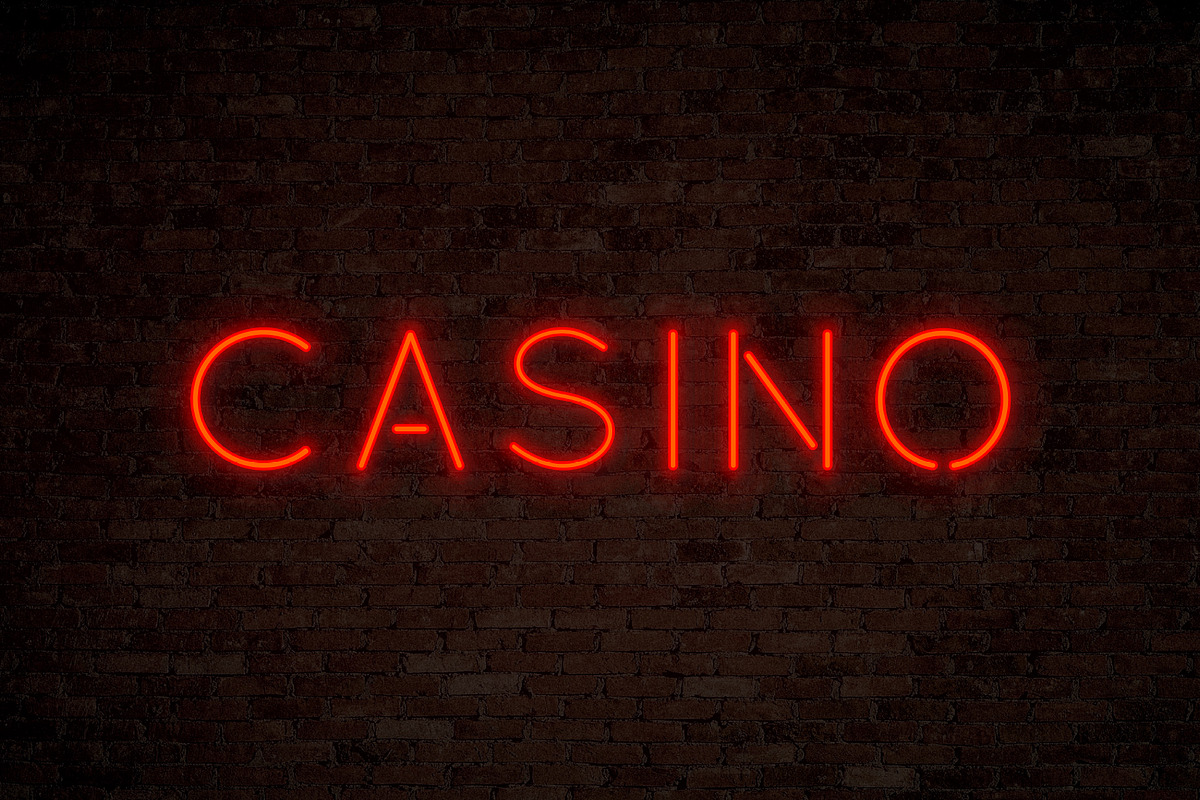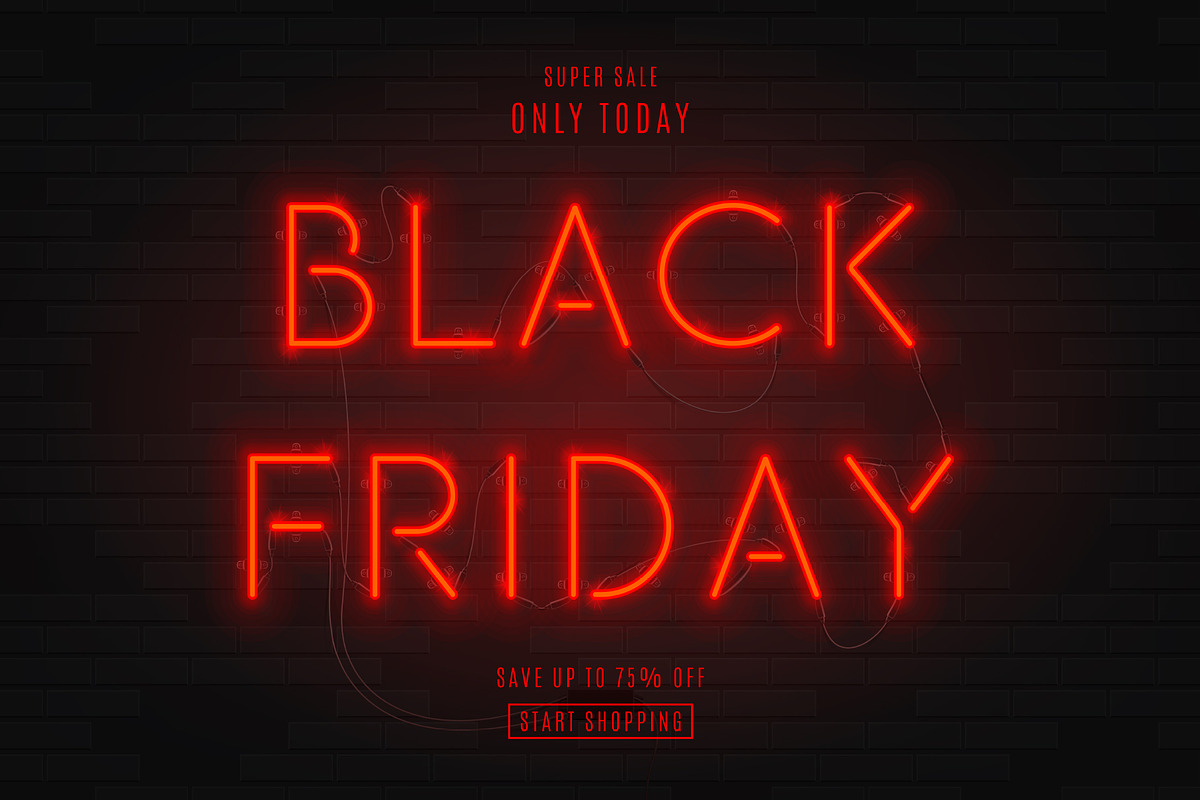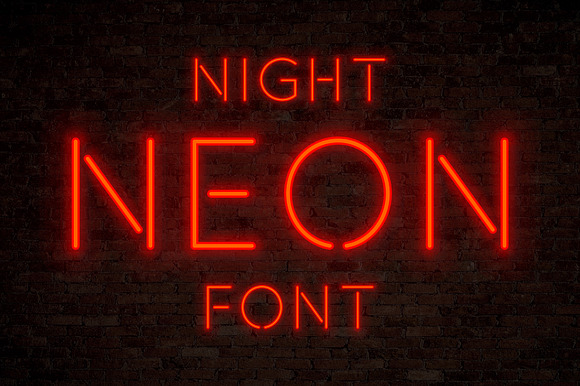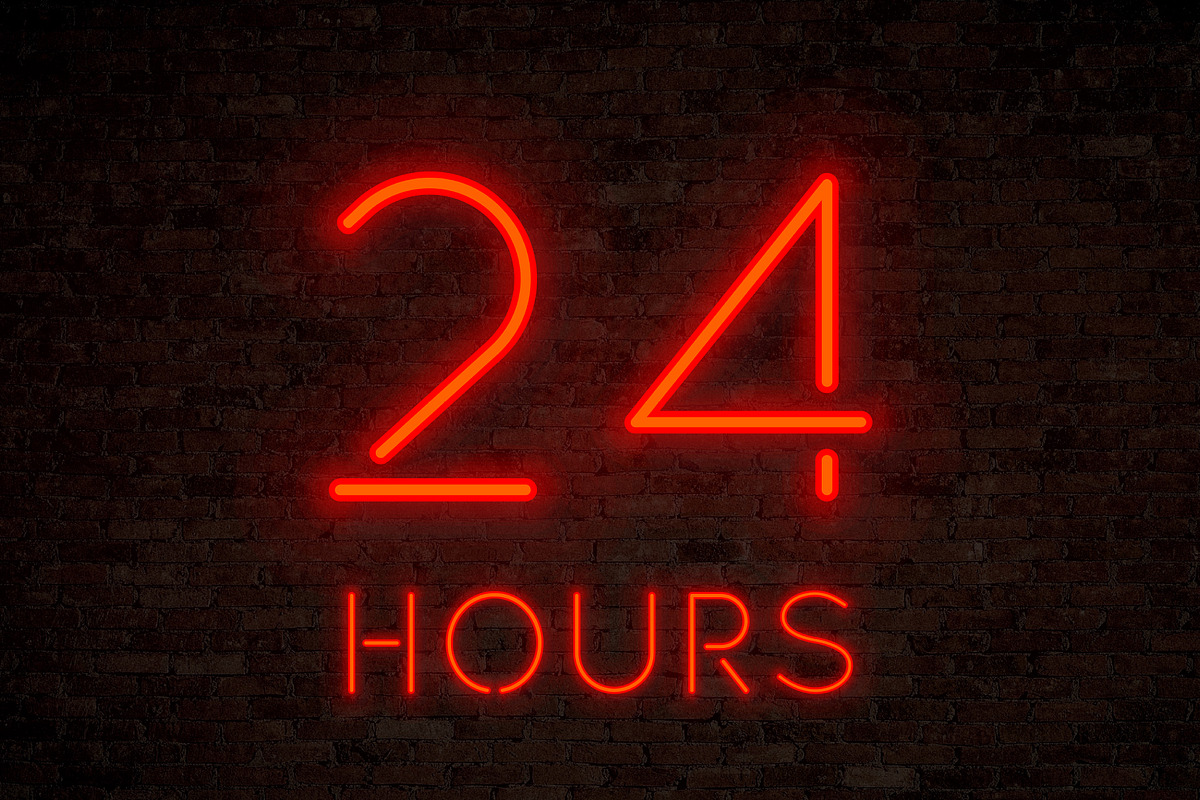
Night Neon SVG Font - Red
Hello! Introducing Night Neon SVG Font - Red - Color Font. It is OpenType SVG font which you can directly type as Neon Glowing letters
Each glyph has transparent shadows and transparent light effects for realistic neon effect. This font is indispensable for retro billboards. Of course, you can use these fonts in other different projects.
Night Neon SVG Font - Red by Andrey Yaroslavtsev fits naturally into Branding, posters, packaging, typography.